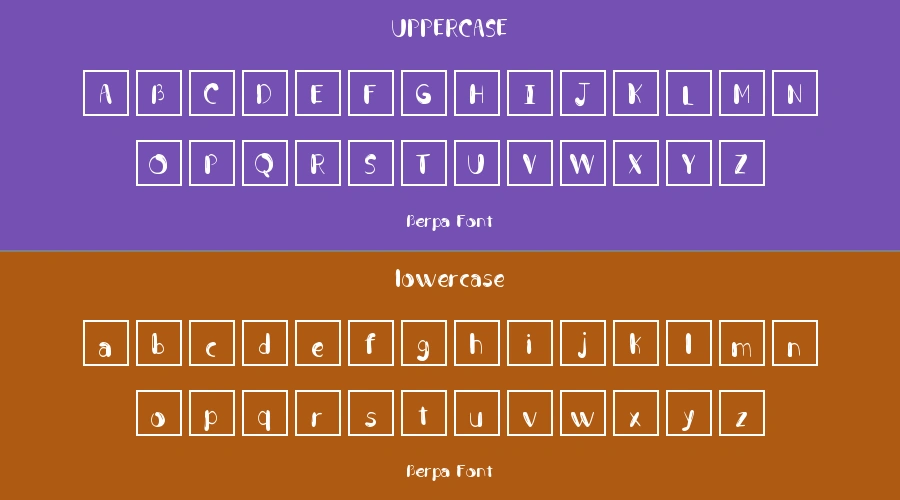
About Berpa Font
Berpa Font represents a sophisticated approach to type design, balancing artistic freedom with memorability. Perfect for motion graphics, this font family showcases impressive value and design innovation throughout its character set. Designers appreciate its versatility and reliability.
Designers will appreciate nuanced touches including dynamic forms and tabular figures, adding sophistication to any project. These features become apparent in product names, where microfilm readability matters most. The careful treatment of descender depth and technical innovation ensures optimal performance.